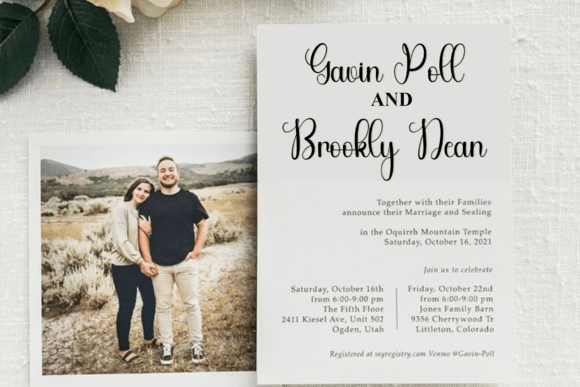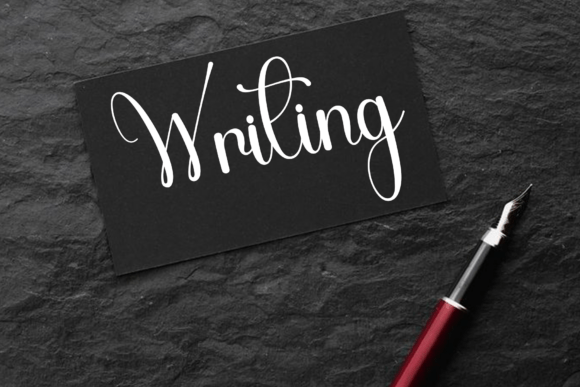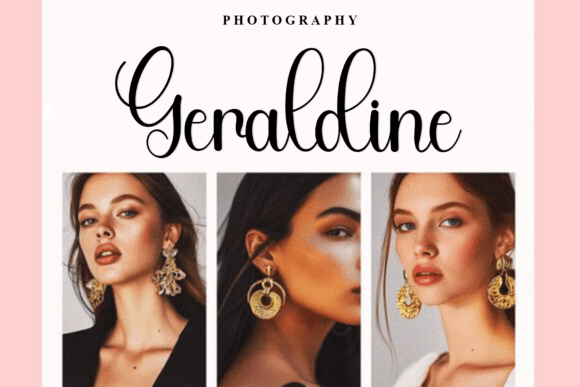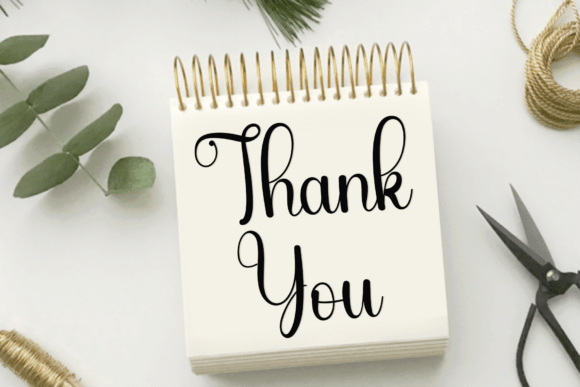
Discover the Elegance of Darling Valentina Font: A Romantic Script for Luxurious Designs
In the world of typography, few fonts capture the essence of luxury, elegance, and romance as perfectly as the Darling Valentina font. This modern script is a masterpiece designed to celebrate love, beauty, and high-end fashion. With its high-contrast strokes and exaggerated, looping ascenders, Darling Valentina exudes a sense of sophistication and grace, making it the ideal choice for a variety of luxurious projects.
The Perfect Font for Valentine’s Day Campaigns and Luxury Branding
Valentine’s Day is a celebration of love and romance, and what better way to express these feelings than with a font that embodies the very essence of these emotions? The Darling Valentina font is specifically designed to make your Valentine’s Day campaigns stand out. Its elegant and luxurious feel makes it perfect for:
- Valentine’s Day cards and invitations
- Luxury jewelry branding and packaging
- High-stakes wedding invitations and wedding stationery
Whether you’re a designer looking for the perfect font to elevate your client’s branding or a crafty DIY enthusiast creating handmade cards and invitations, Darling Valentina is sure to impress.
One of the standout features of the Darling Valentina font is its incredible versatility. While it shines in romantic and luxurious contexts, it can also adapt to a variety of themes and styles, including:
- Tropical summer vibes: Use Darling Valentina to add a touch of elegance to your summer-themed designs
- Festive Christmas letters: The font’s looping ascenders and high-contrast strokes give it a whimsical feel perfect for holiday greetings
This adaptability makes Darling Valentina a valuable addition to any designer’s or crafter’s font library.
Tips for Using Darling Valentina
To get the most out of the Darling Valentina font, here are a few expert tips:
- Use it for short, impactful words or names: Darling Valentina truly comes alive when used for short, punchy text. It makes a beautiful focal point in any layout, drawing the viewer’s eye and evoking an emotional response.
- Pair it with a classic serif font: For a professional finish, pair Darling Valentina with a classic, wide-spaced serif font. This allows the script’s flourishes to breathe and truly shine, creating a balanced and harmonious design.
Why Designers and Crafters Love Darling Valentina
Darling Valentina has quickly become a favorite among designers and crafters for several reasons:
- Elegance and sophistication: The font’s luxurious feel and high-end aesthetic make it perfect for clients or projects that demand the best.
- Romantic and whimsical: Darling Valentina’s looping ascenders and high-contrast strokes give it a distinctly romantic and whimsical feel, perfect for Valentine’s Day, weddings, and other celebrations of love.
- Easy to read and beautiful to look at: Despite its elegant and ornate design, Darling Valentina remains highly legible, making it suitable for both digital and print projects.
In conclusion, the Darling Valentina font is a stunning addition to any designer’s or crafter’s toolkit. Its luxurious feel, elegant design, and versatility make it perfect for a wide range of projects, from Valentine’s Day campaigns and luxury jewelry branding to high-stakes wedding invitations and festive holiday greetings. By incorporating Darling Valentina into your designs, you can add a touch of sophistication and romance that will leave a lasting impression on your audience.